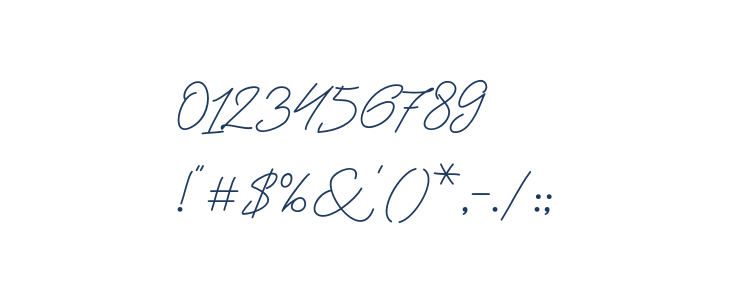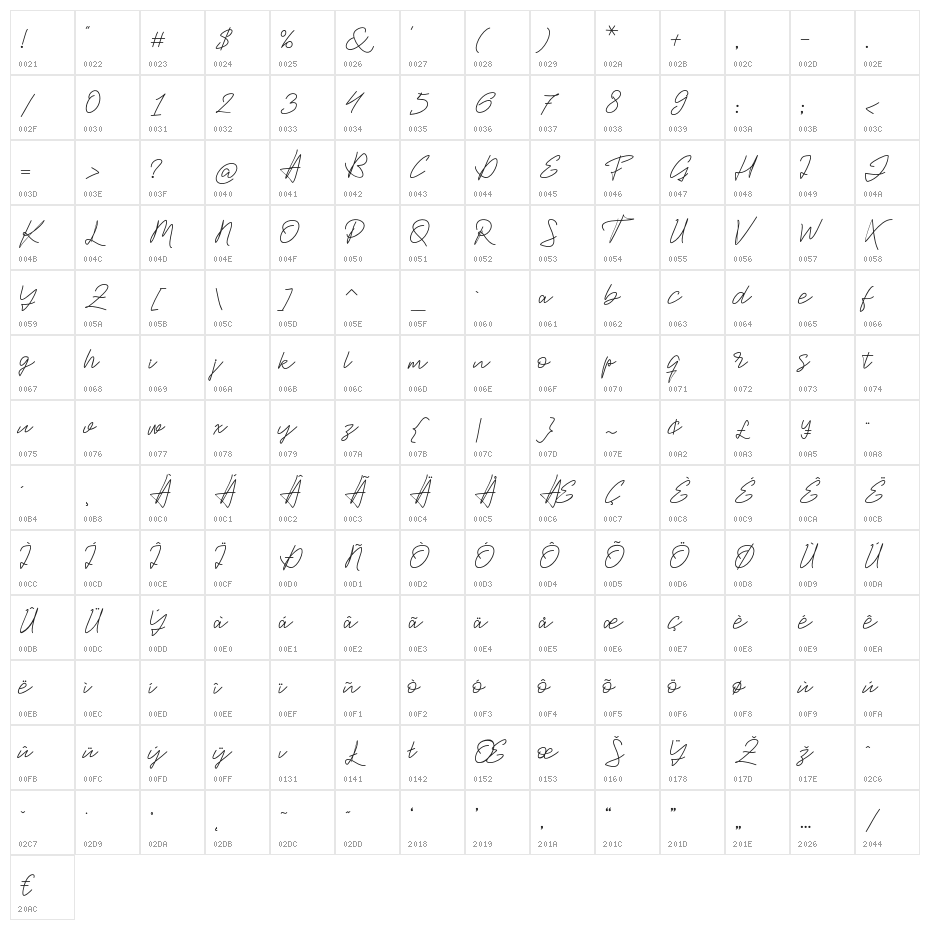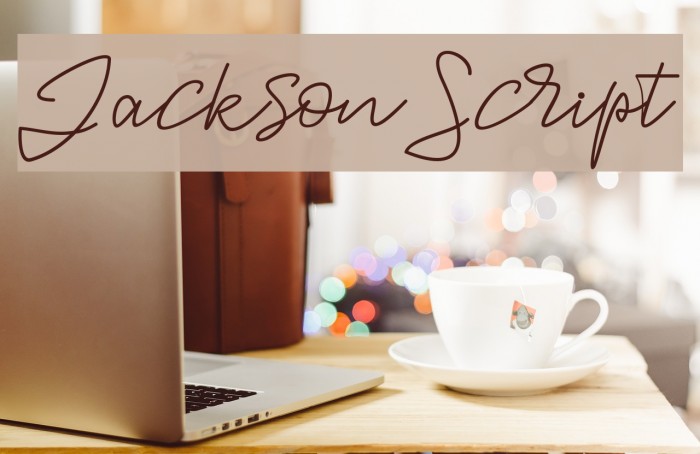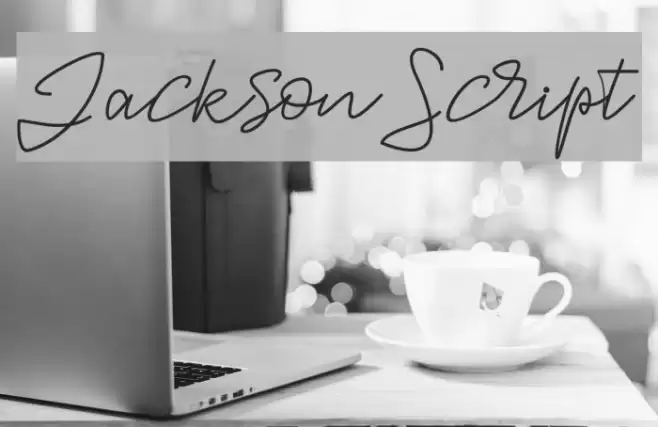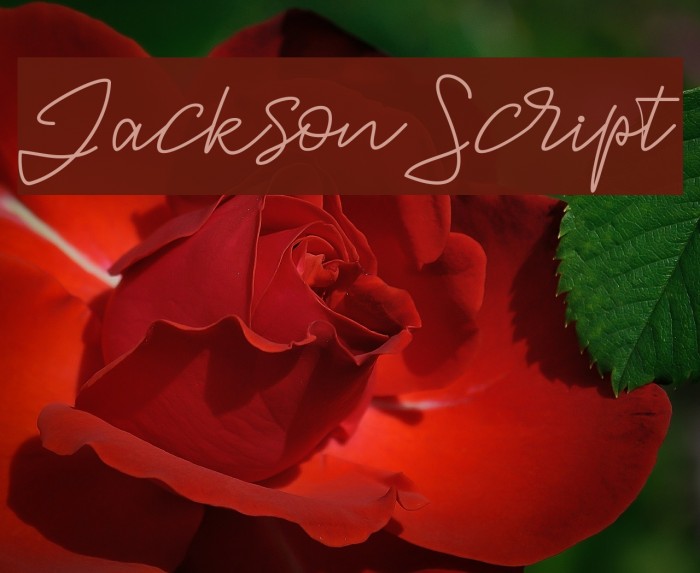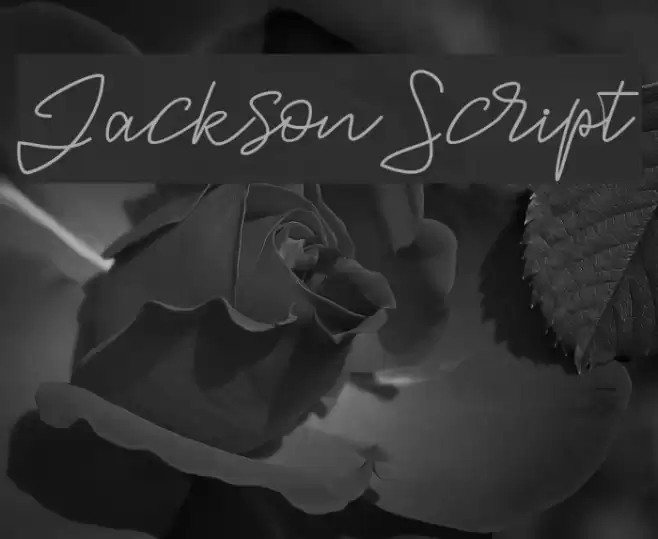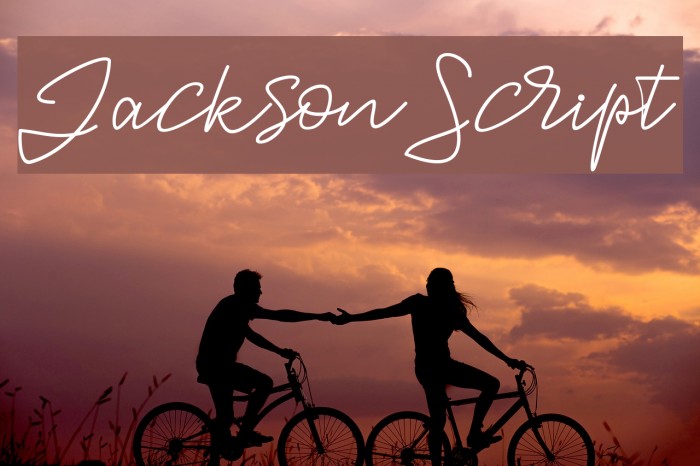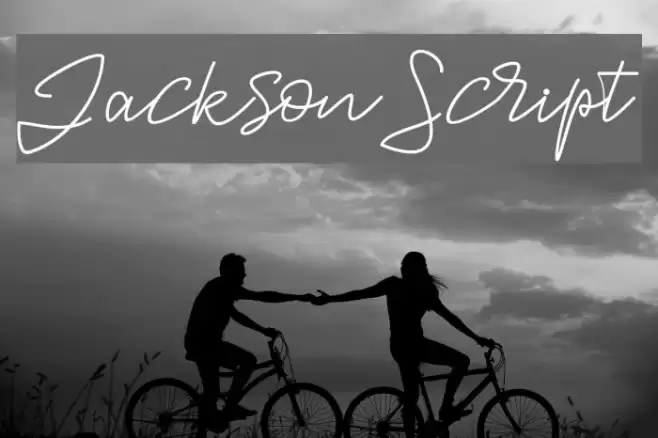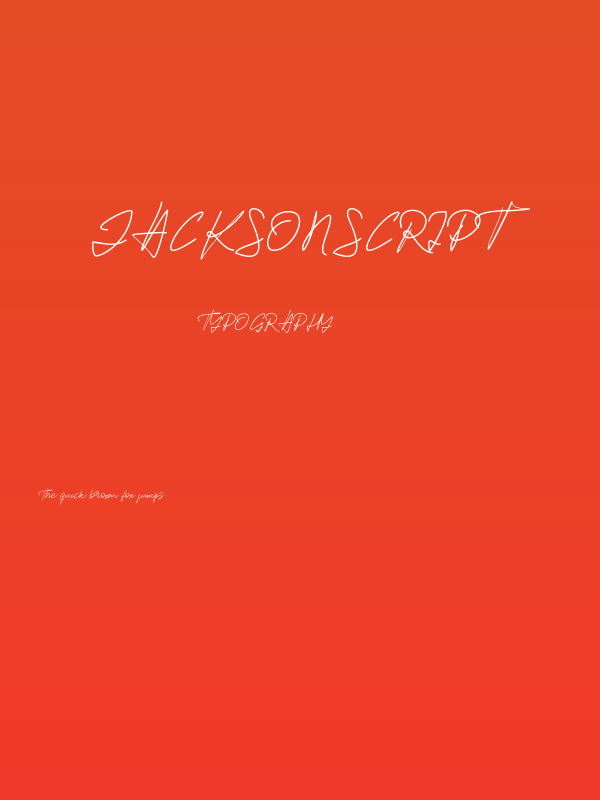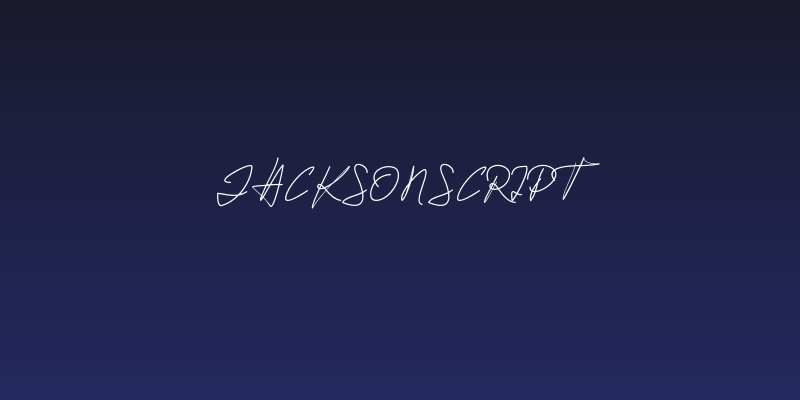
JacksonScript Font
JacksonScript Description
This font exudes a lively and dynamic energy with its flowing, cursive style. Each letter is crafted with a sense of movement, characterized by smooth, continuous strokes that mimic natural handwriting. The uppercase letters are bold and expressive, while the lowercase letters maintain a consistent fluidity, making it ideal for conveying a personal touch. The numerals and special characters are equally stylized, ensuring a cohesive look across all text elements. This font is perfect for projects that require a personal, handwritten feel.
Use CaseLogos, Headlines, Invitations
Proposed ProjectsIdeal for wedding invitations, personal branding, greeting cards, and artistic projects.